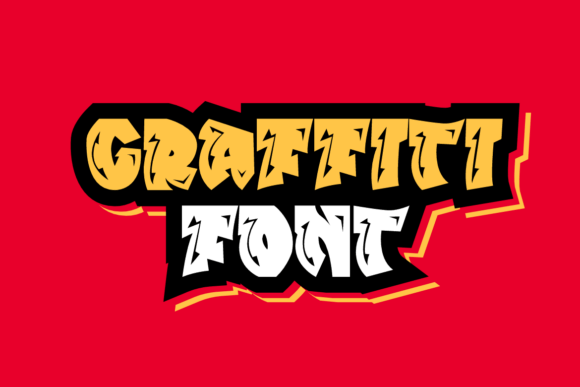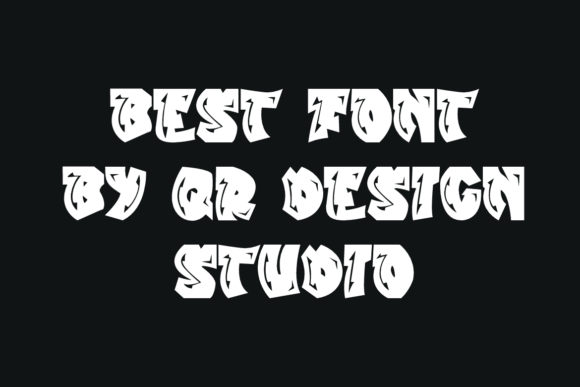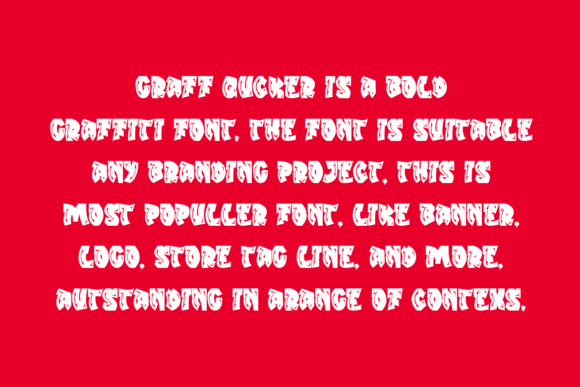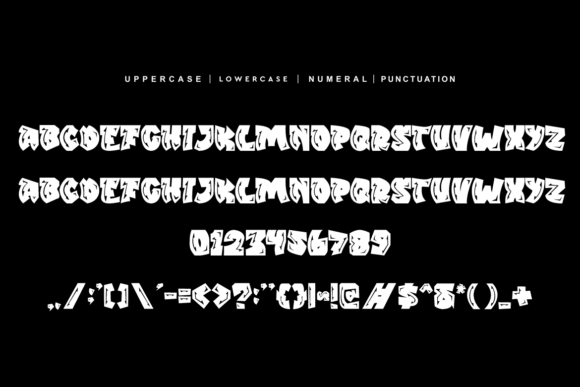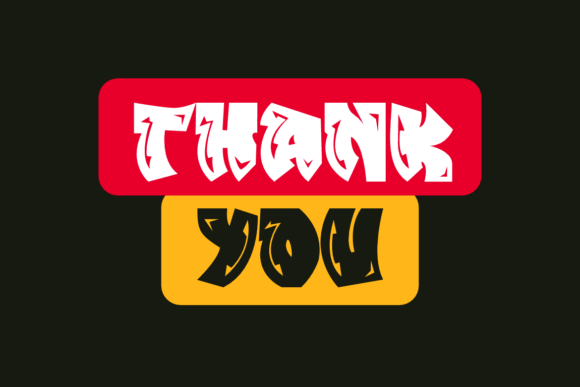
Introducing Graff Qucker Font: The Ultimate Display Font for Bold Designs
Are you tired of using the same old fonts for your branding projects? Look no further than Graff Qucker Font, a bold and authentic display font that’s perfect for making a statement. Whether you’re working on a logo, sports brand, or any other project that requires a strong visual identity, Graff Qucker Font is the perfect choice.
What Makes Graff Qucker Font Stand Out?
Graff Qucker Font is a unique and eye-catching font that’s designed to grab attention. Its bold and authentic style makes it perfect for use in a wide range of contexts, from sports and fitness to technology and entertainment. The font’s versatility is one of its standout features, allowing designers to use it in various projects, including:
- Web headers and titles
Key Features of Graff Qucker Font
So, what makes Graff Qucker Font so special? Here are some of its key features:
- Bold and authentic style: Graff Qucker Font has a unique and eye-catching style that’s perfect for making a statement.
- Highly legible: Despite its bold style, Graff Qucker Font is highly legible, even at small sizes.
- Versatile: The font is suitable for use in a wide range of contexts, from sports and fitness to technology and entertainment.
Why Choose Graff Qucker Font?
With so many fonts available, why choose Graff Qucker Font? Here are just a few reasons:
- Unique style: Graff Qucker Font has a unique and eye-catching style that’s sure to make your designs stand out.
- Time-saving: With Graff Qucker Font, you can create professional-looking designs in no time.
Tips and Tricks for Getting the Most Out of Graff Qucker Font
Here are some tips and tricks for getting the most out of Graff Qucker Font:
- Experiment with different colors: Graff Qucker Font looks great in a variety of colors, so don’t be afraid to experiment.
- Use it with other fonts: Graff Qucker Font pairs well with other fonts, so try using it with a complementary font to create visual interest.
- Play with font sizes: Graff Qucker Font is highly legible, even at small sizes, so don’t be afraid to experiment with different font sizes.
In conclusion, Graff Qucker Font is a bold and authentic display font that’s perfect for designers and crafters looking to make a statement. Its unique style, versatility, and ease of use make it an excellent choice for a wide range of projects, from logos and branding to posters and social media graphics. So why wait? Download Graff Qucker Font today and start creating stunning designs that grab attention!